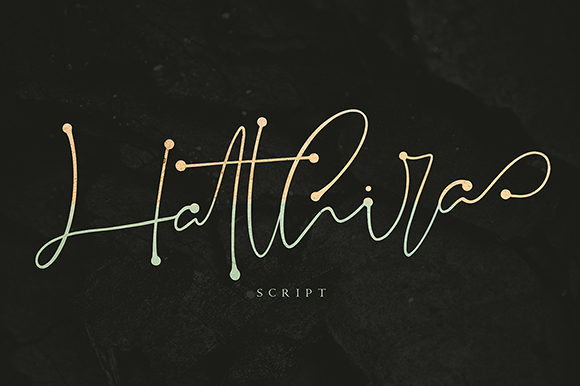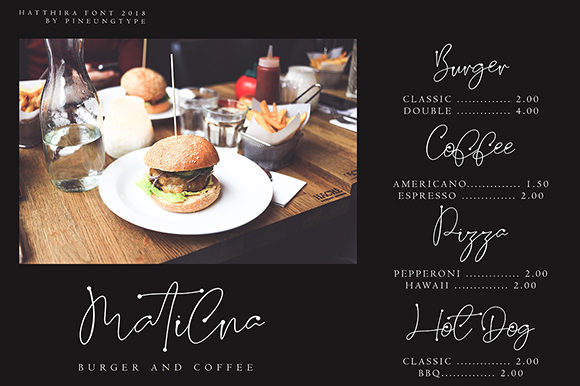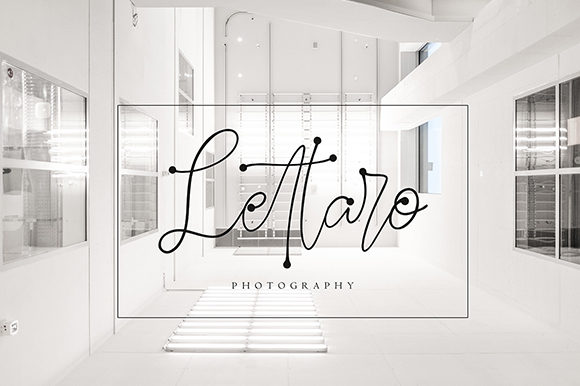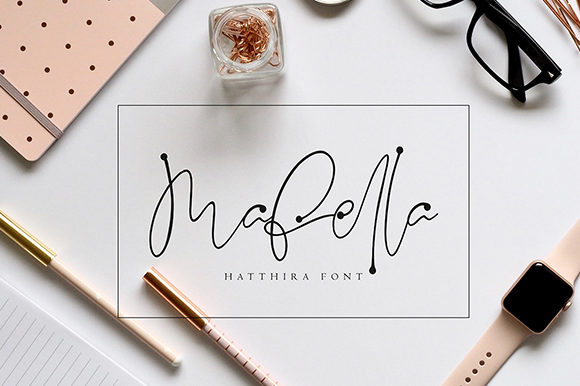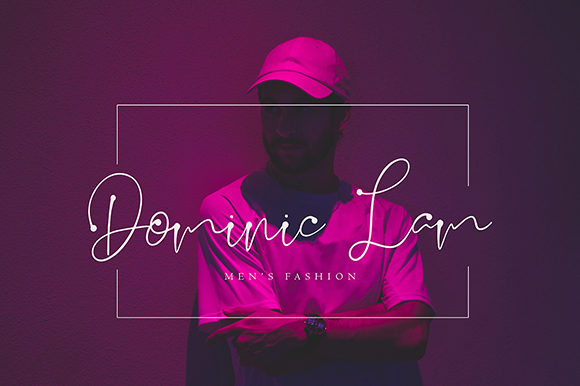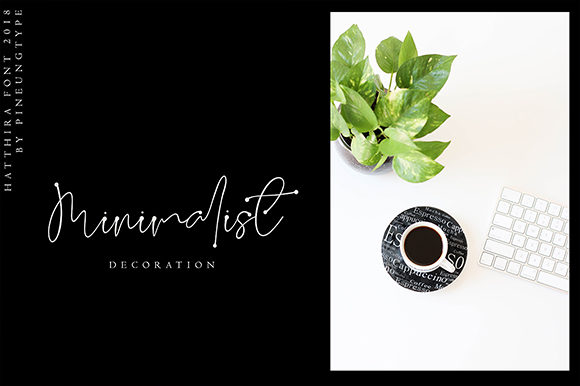
Hatthira Font
About Hatthira Font
Hatthira is a light and authentic handwritten font with a unique feel. It will add a distinct vintage vibe to any design idea!